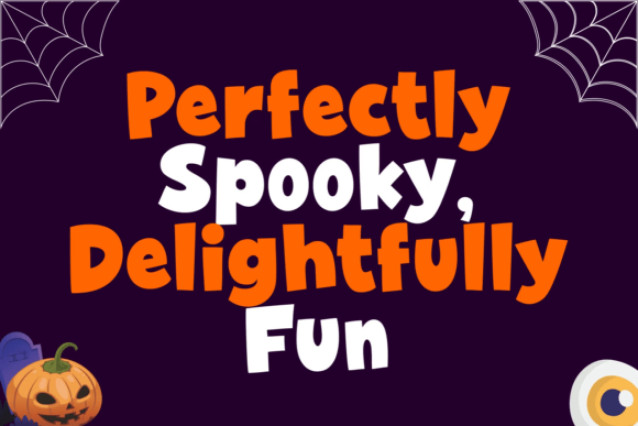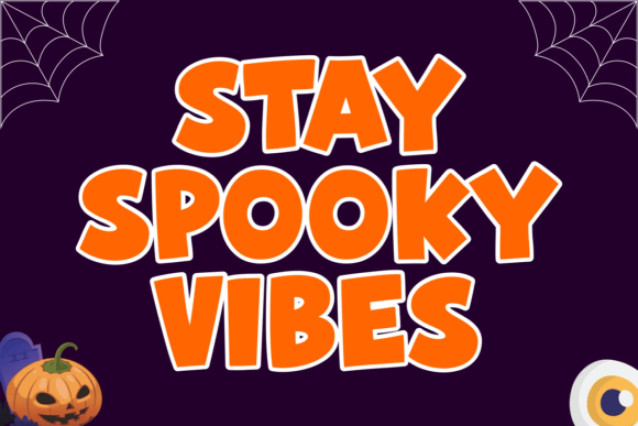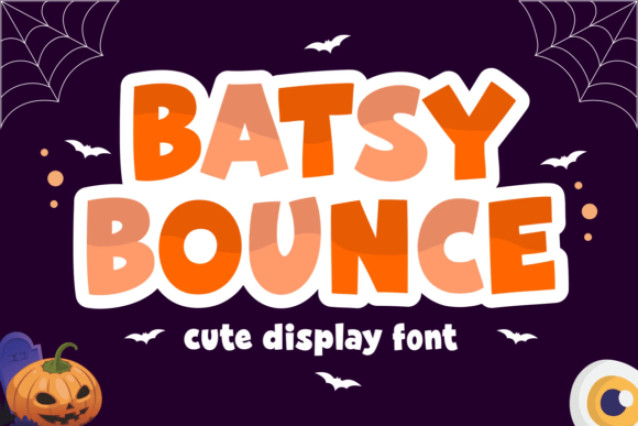
Batsy Bounce is a fun and playful display font that captures the cheerful side of Halloween. With its bold, chunky letters and bouncy design, this typeface is perfect for adding a lively, kid-friendly vibe to your spooky-season projects.
Great for party invitations, Halloween crafts, trick-or-treat bags, t-shirts, stickers, social media posts, and festive branding, the Batsy Bounce font brings a joyful and energetic touch to any design. Its cute yet bold style makes it especially suitable for children’s themes, fun merchandise, and seasonal decorations that need to stand out.
Whether you’re creating a festive flyer, playful poster, or simply want to add a dash of Halloween charm, the Batsy Bounce font will make your words pop with personality and fun.